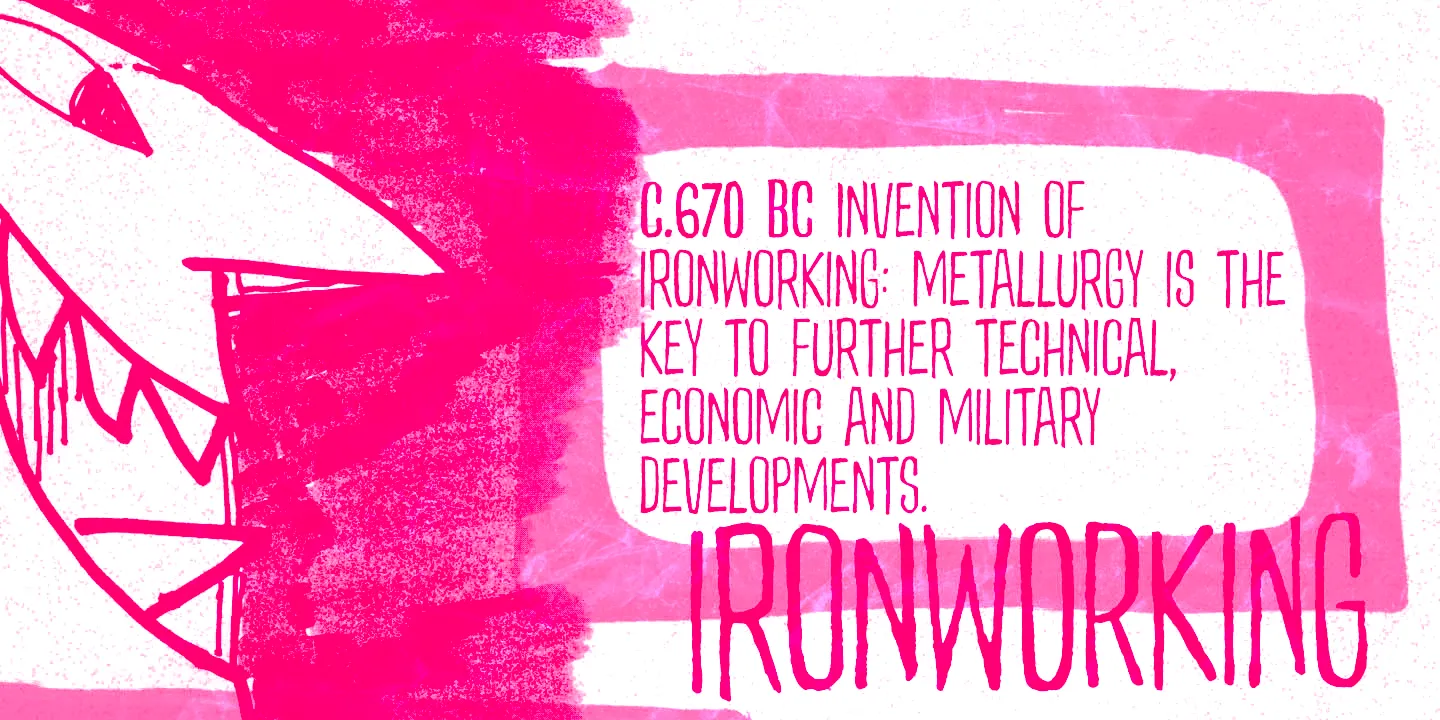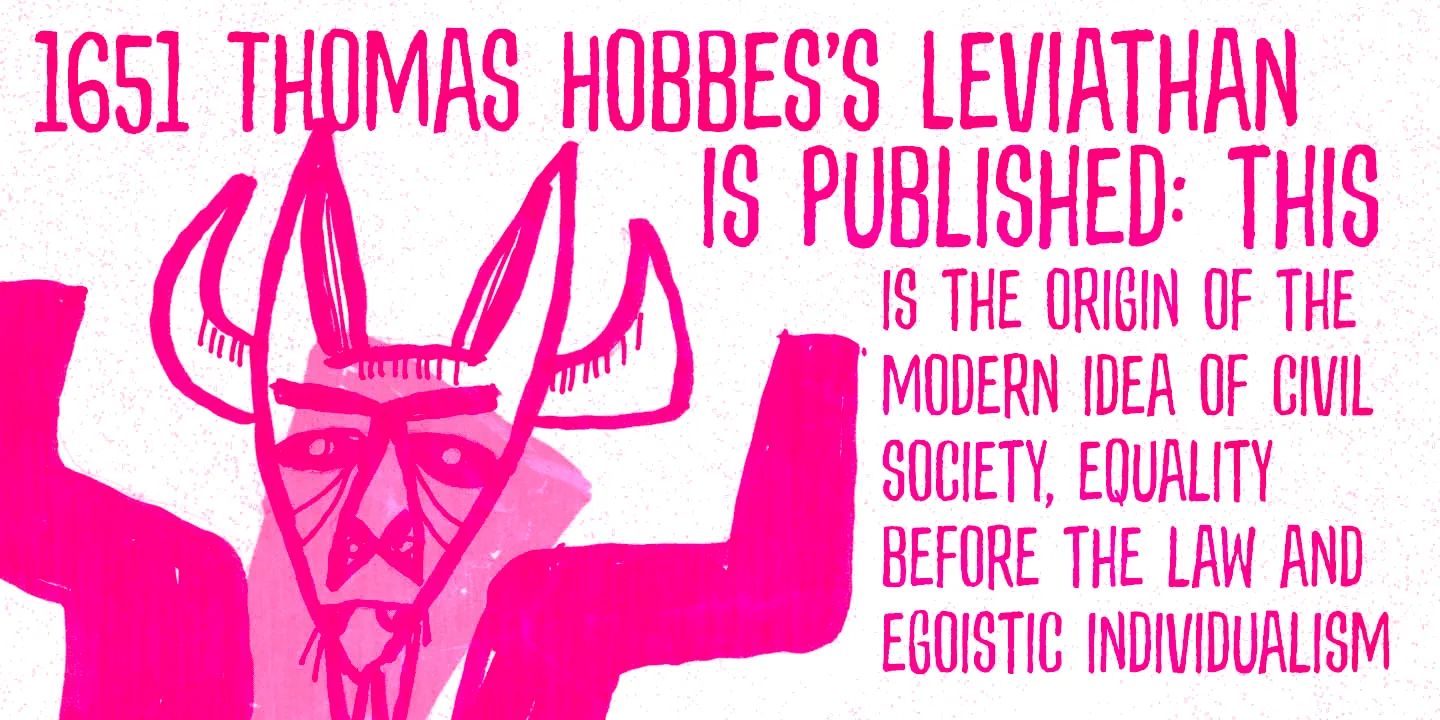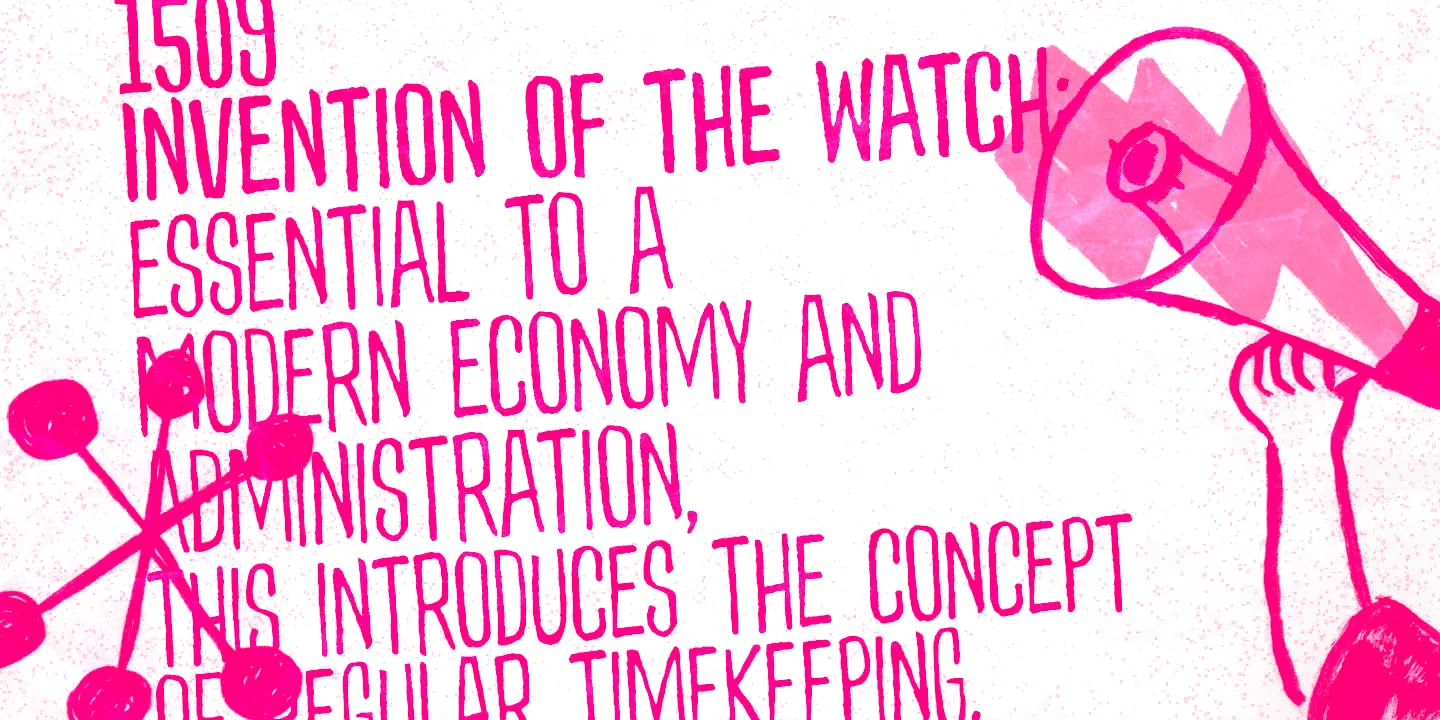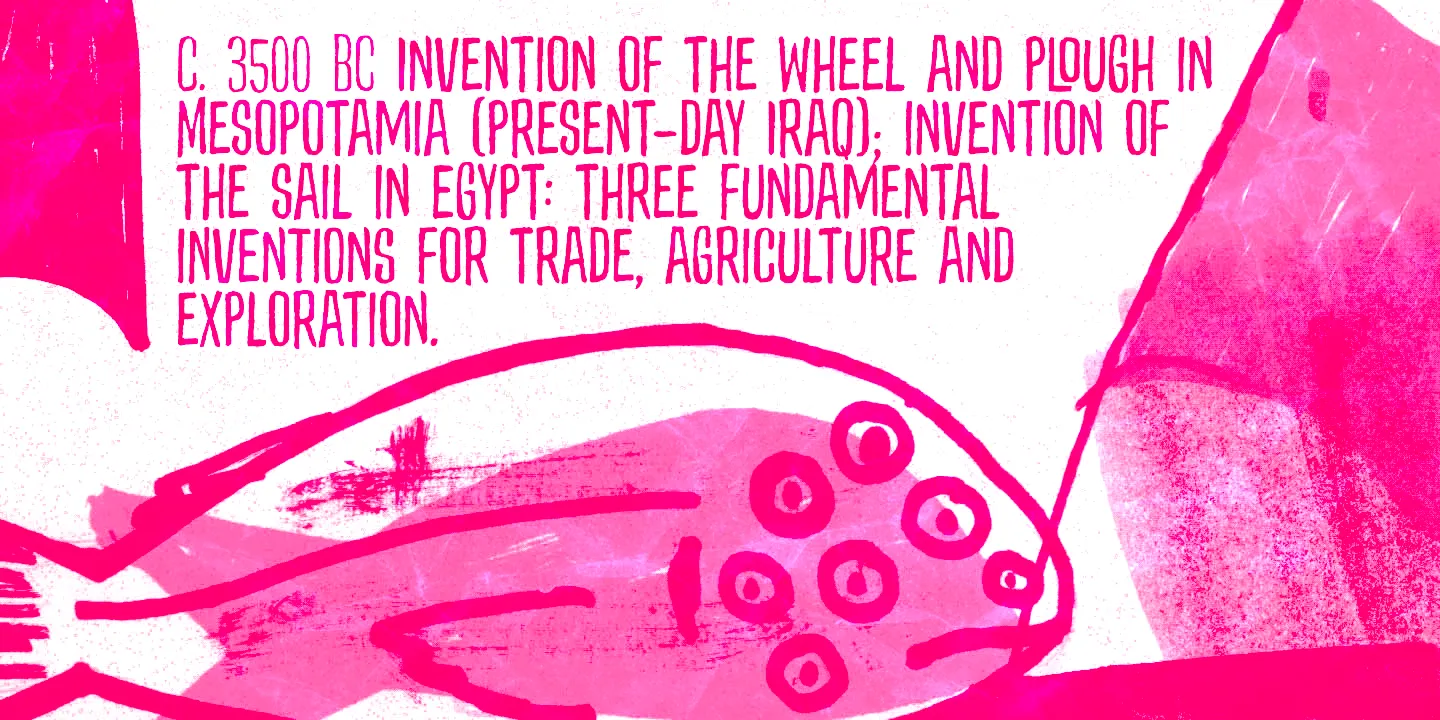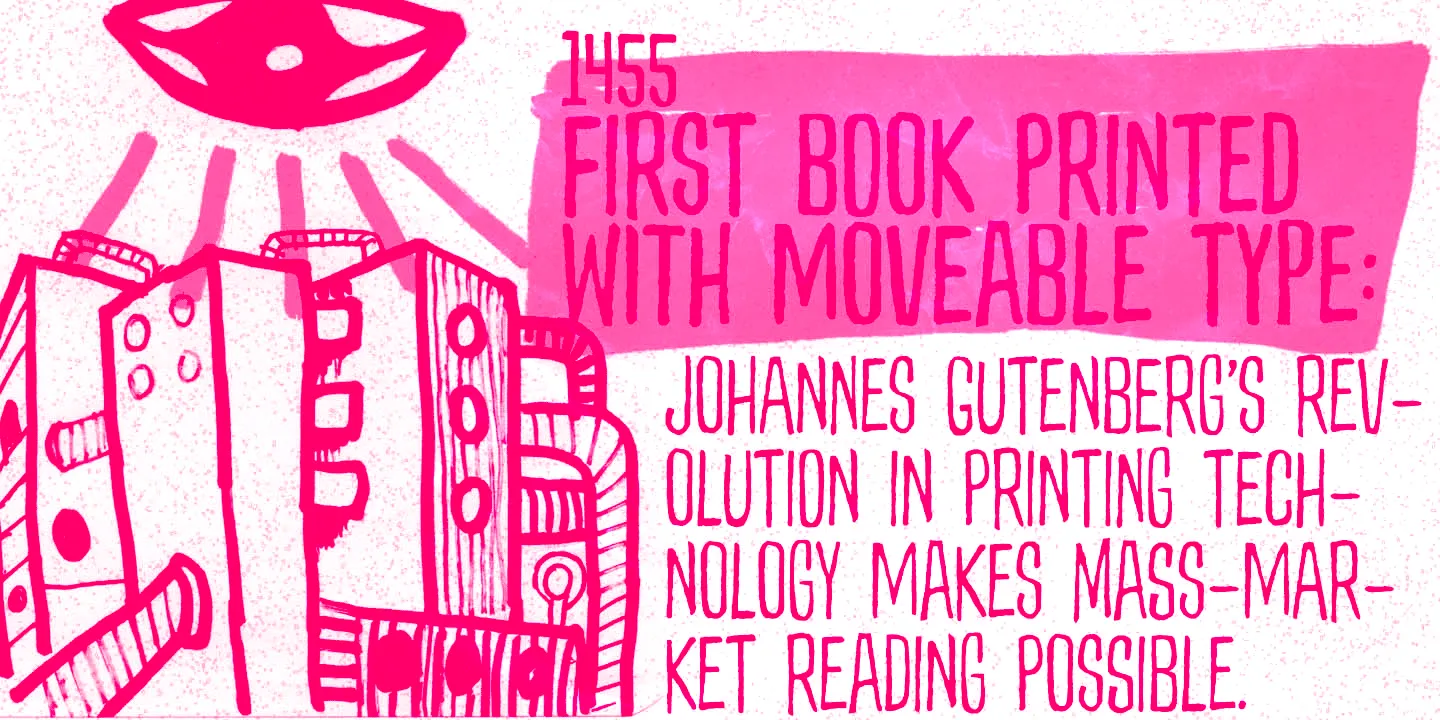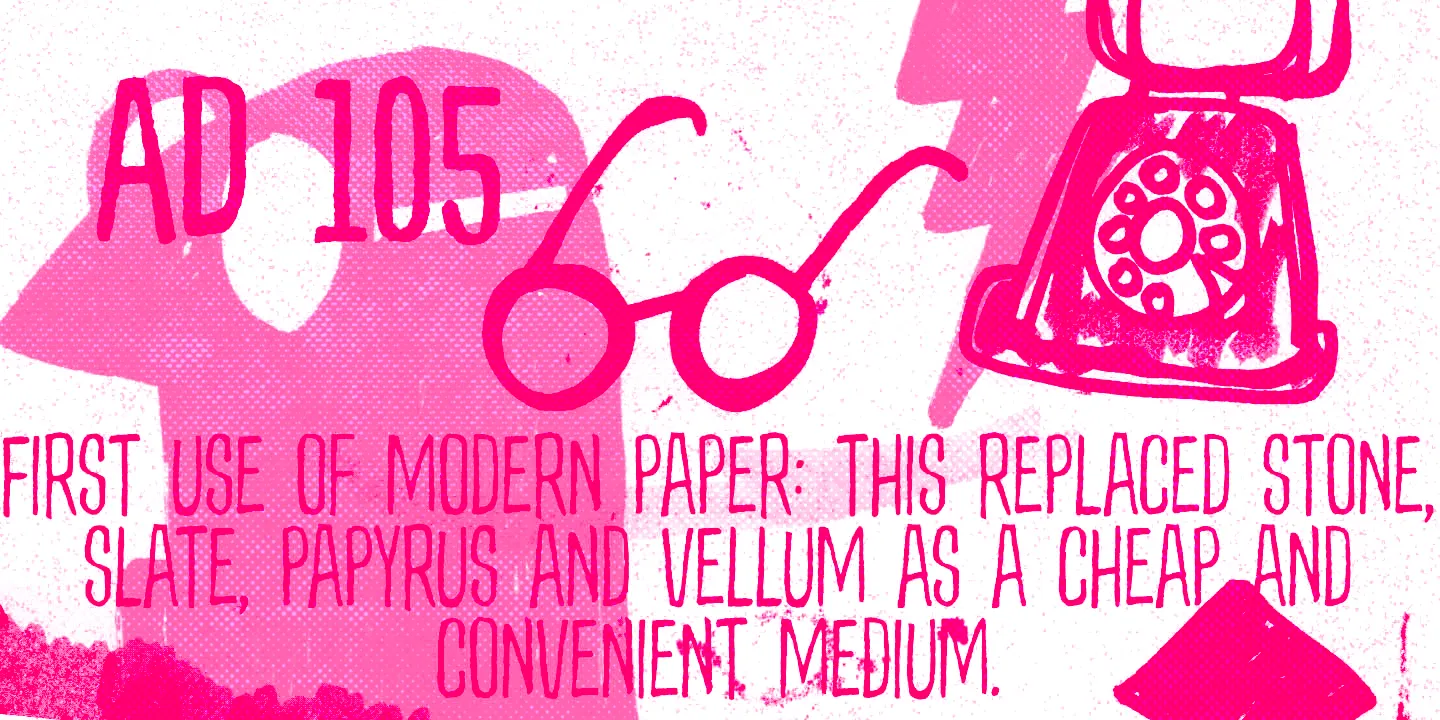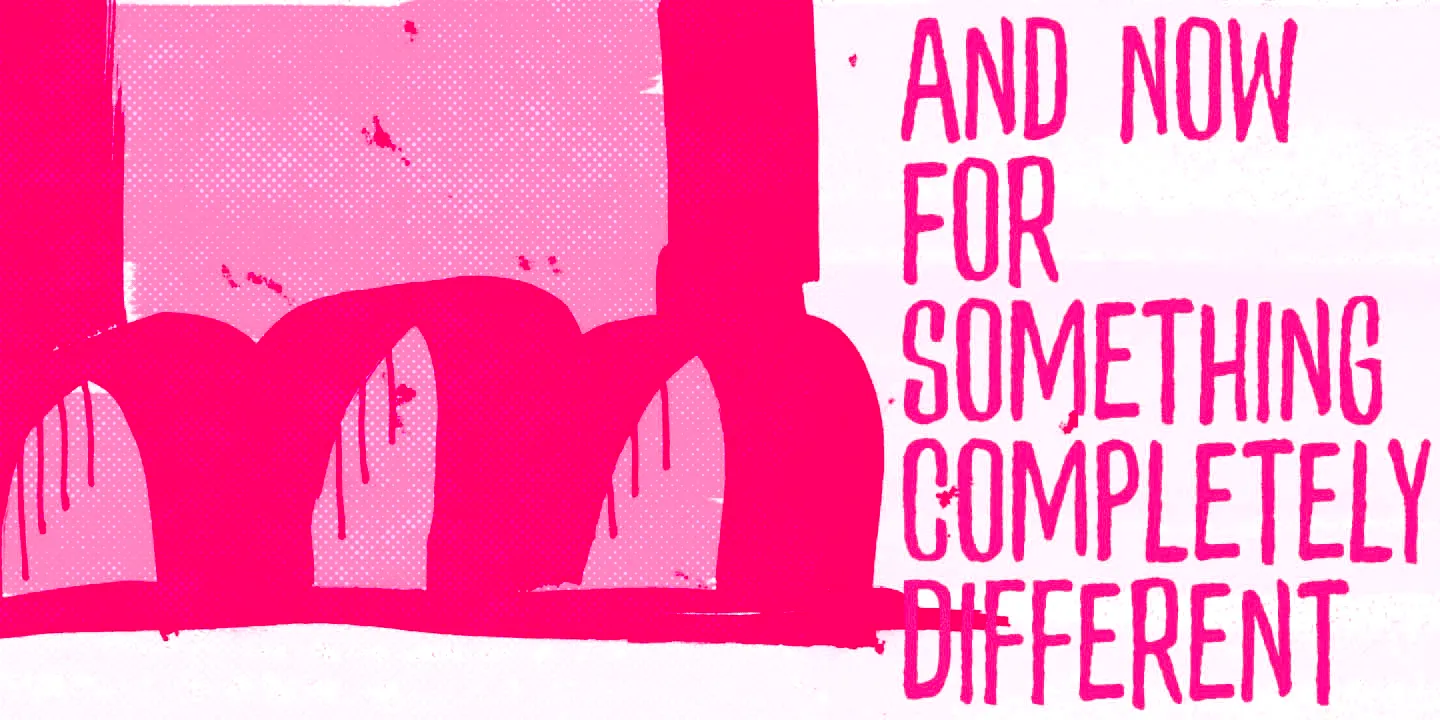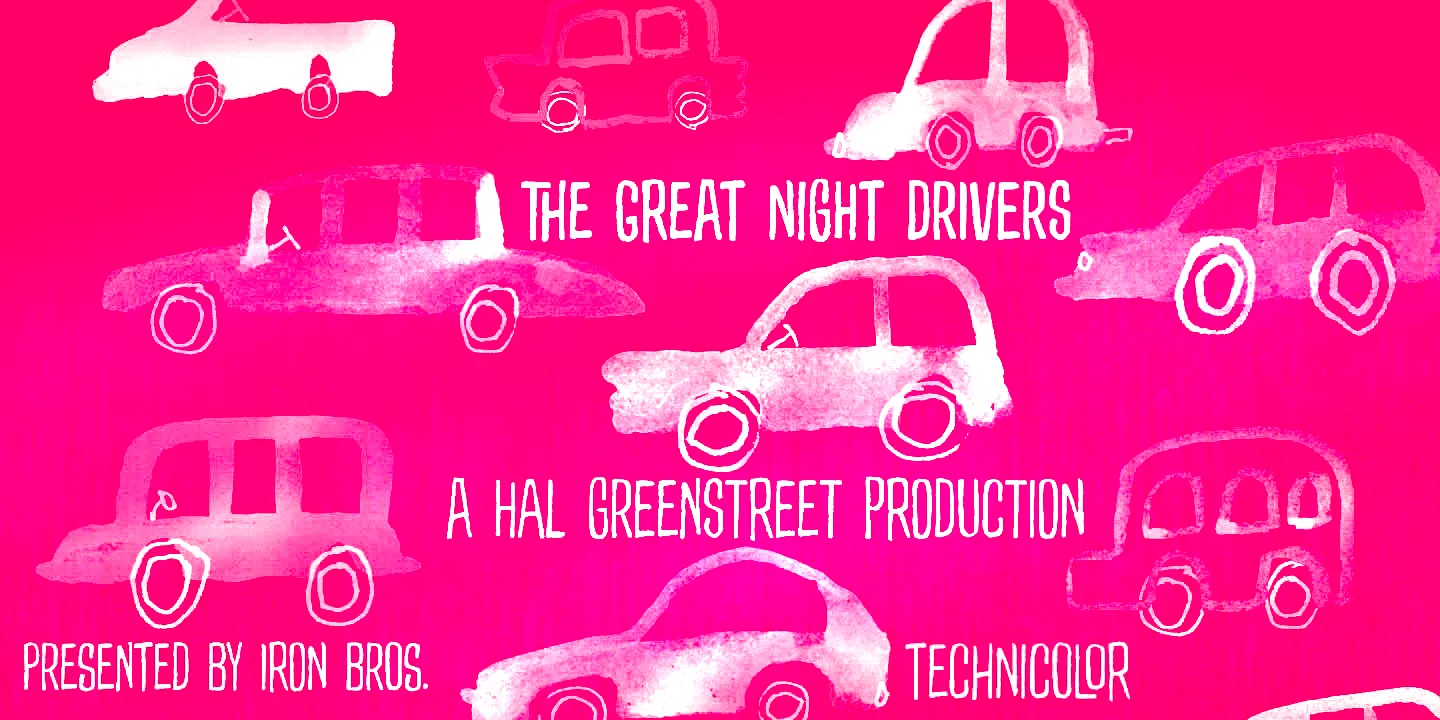
Plumcake Font Family
Plumcake
Plumcake is a bittersweet hand-drawn font, pleasant and assertive. Available in two weights, both all caps, with alternates for each letter its narrow proportions and subtle irregularities bring warmth and charm. And to sweeten things up, every now and again, it comes with some ​ligatures and ​handy swash alternates. Ideal for adding character without overpowering the message in packaging, cookbooks, zines, and editorial projects that call for a human touch. Starting… Now!